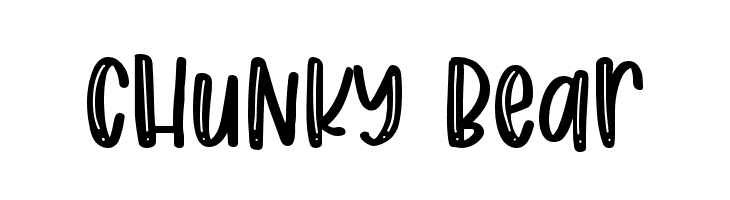
A playful, bold handwritten font with rounded, consistent strokes.
A bold, playful font with chunky, geometric letters.
A playful, bold font with rounded strokes and a hand-drawn feel.
A playful, chunky block font with a hand-drawn, whimsical style.